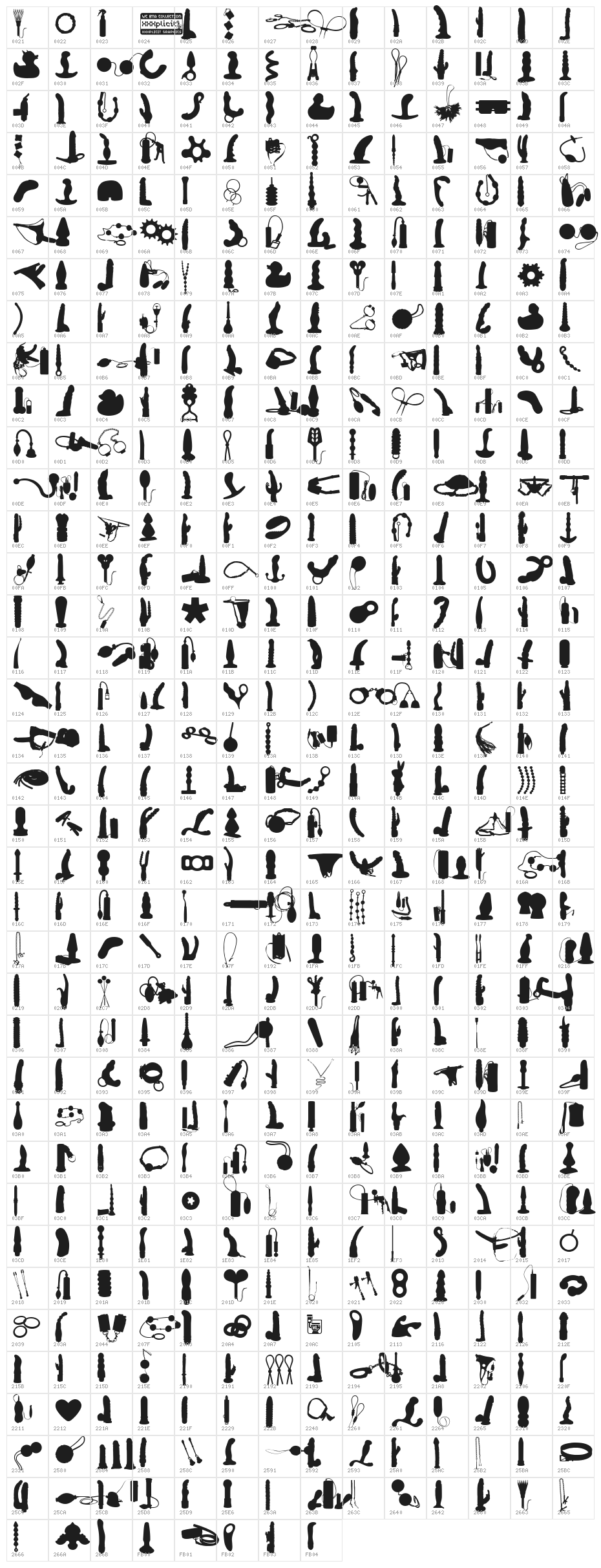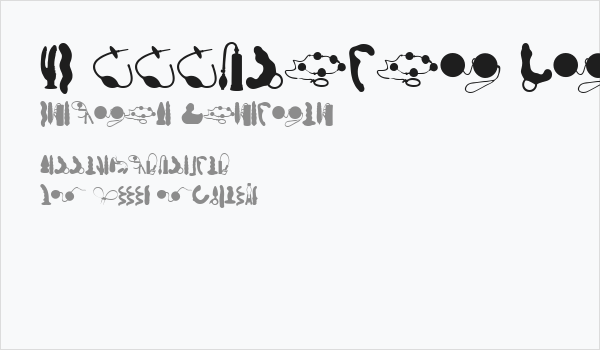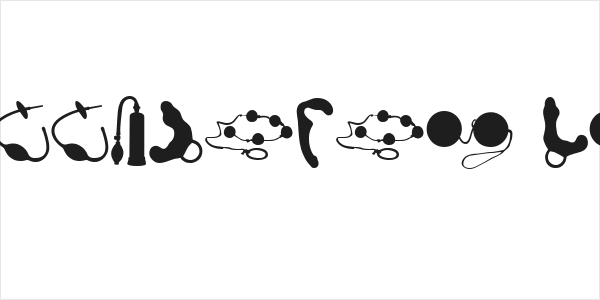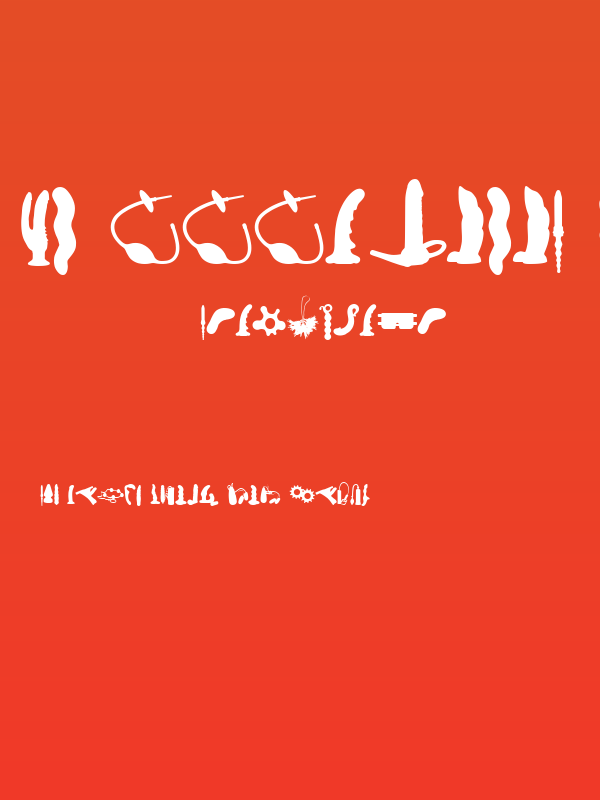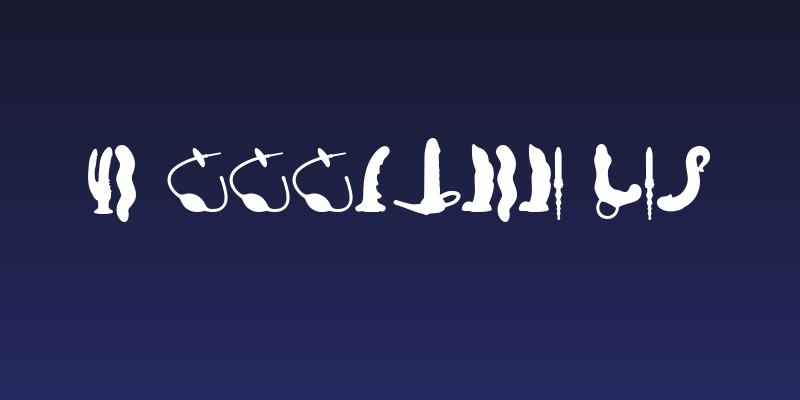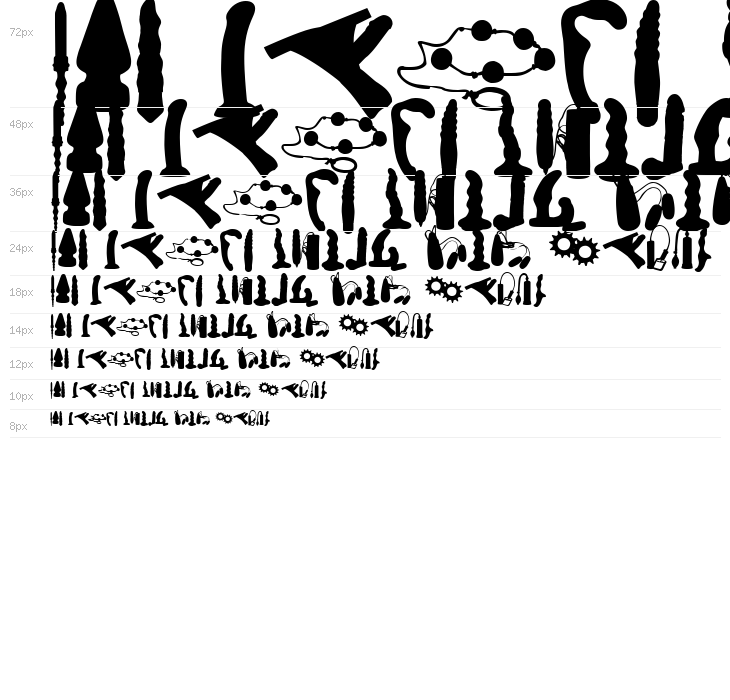
WC XXXplicit Bta Font
WC XXXplicit Bta Description
A highly unconventional and explicit decorative font where each character is constructed from silhouettes of adult-themed objects, resulting in a playful yet provocative appearance. The shapes are bold and filled, with irregular outlines and varying complexity, making each letter visually distinct and attention-grabbing.
| Overall Style | Decorative, Playful, Provocative |
| Use Case | Logos, Headlines, Posters, Themed Graphics |
| Proposed Projects | Adult entertainment branding, novelty event flyers, themed party invitations, provocative posters. |